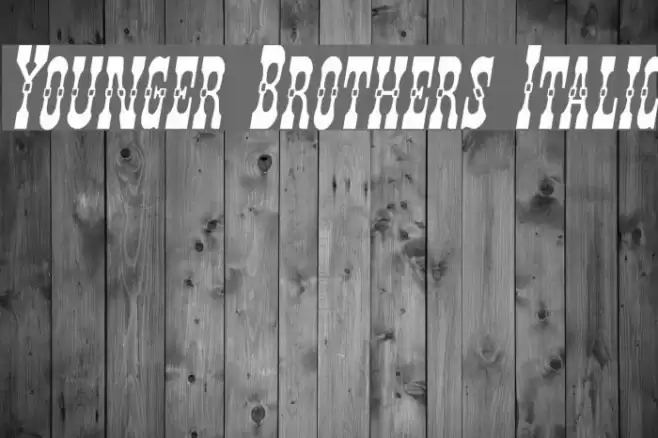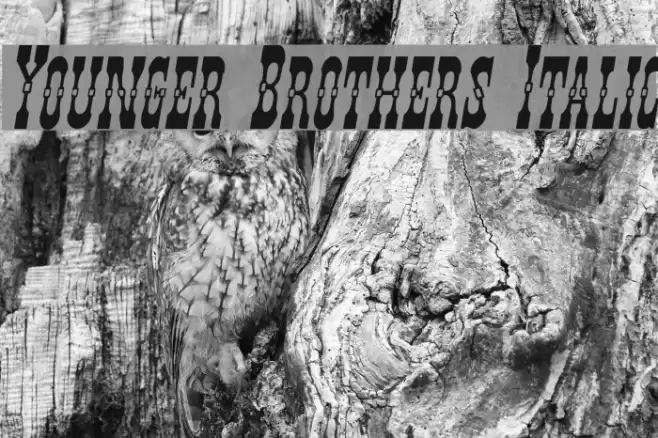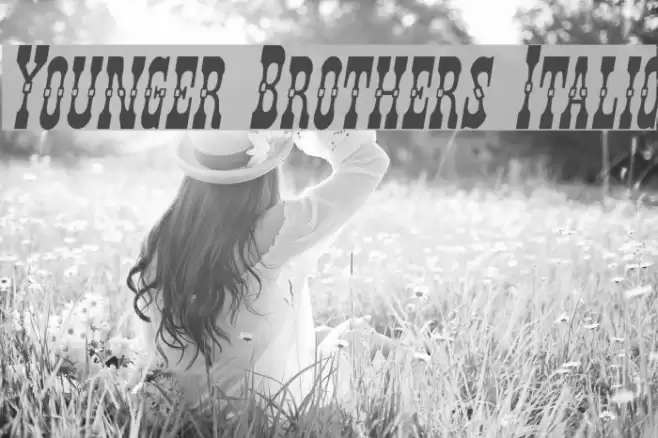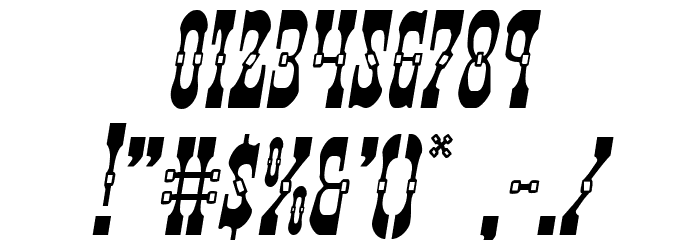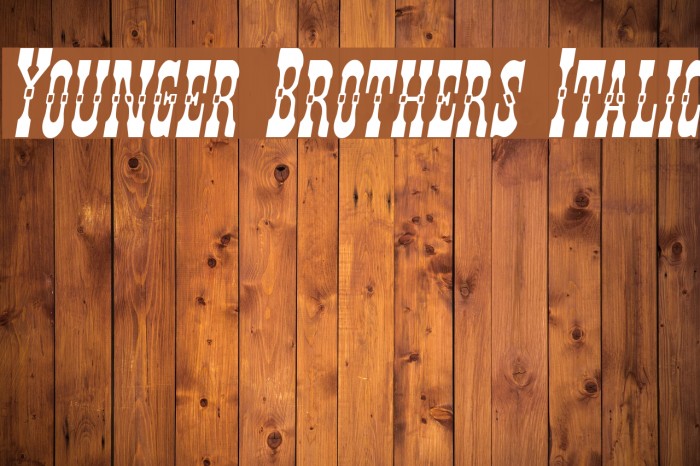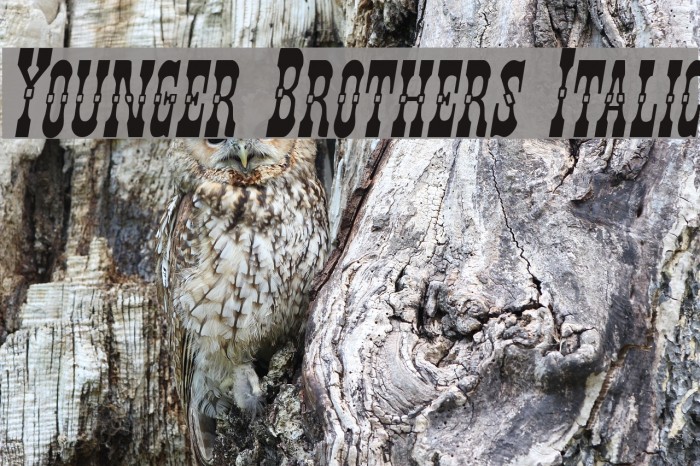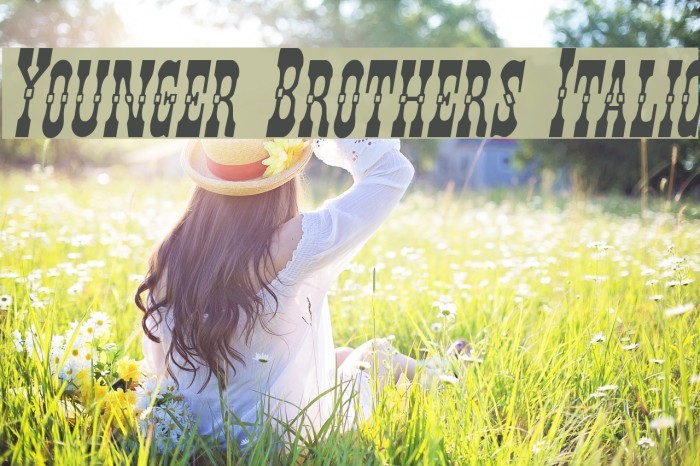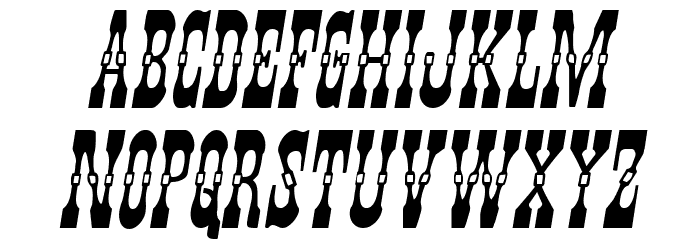
Younger Brothers Italic Font
Younger Brothers Italic Description
This font features a bold and dynamic style with a distinct italic slant, giving it a sense of movement and energy. The characters are heavily stylized with thick strokes and unique cut-out shapes within each letter, adding a decorative and modern flair. The uppercase and lowercase letters maintain a consistent design, while the numerals and special characters follow the same bold aesthetic. The font's unique design makes it stand out, suitable for projects that require a strong visual impact.
A bold, italic font with decorative cut-out shapes and a modern flair from Uncategorized fonts.